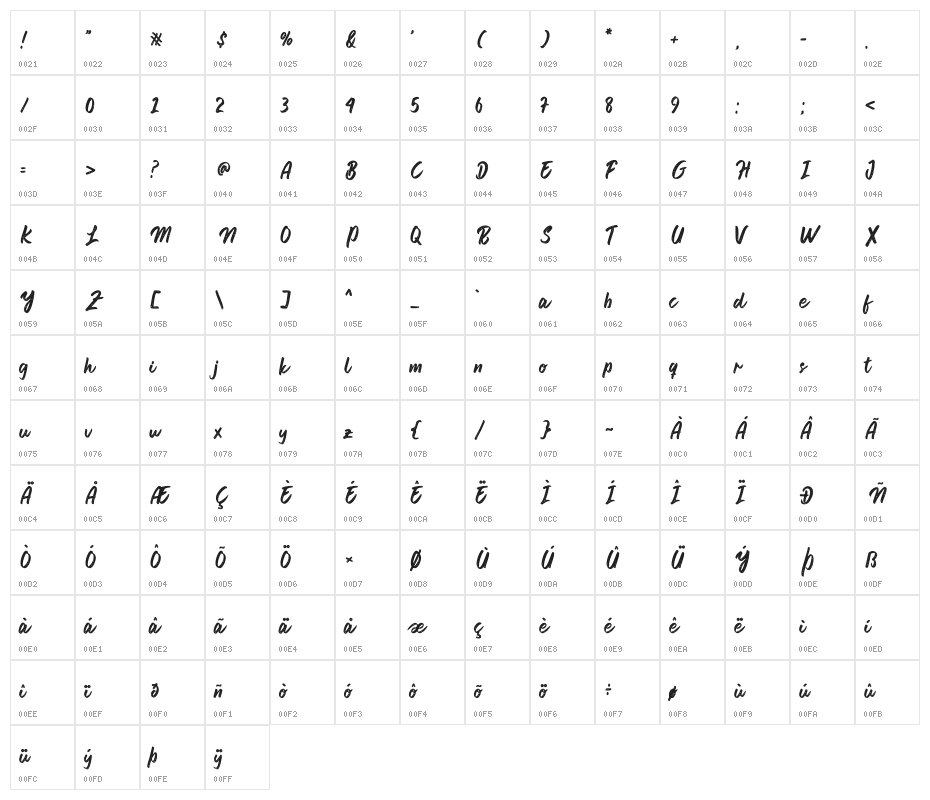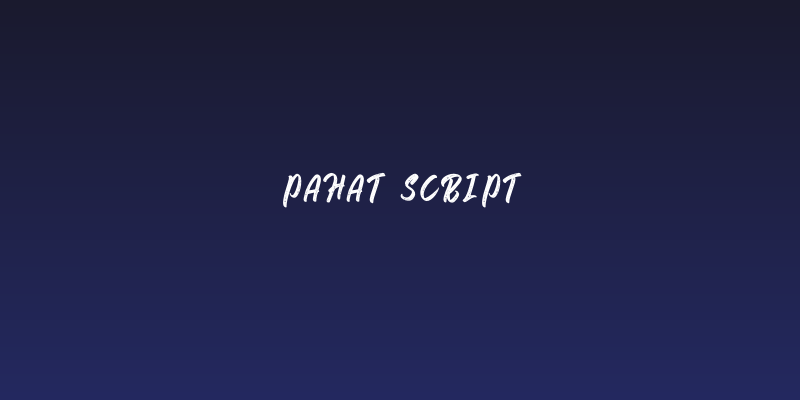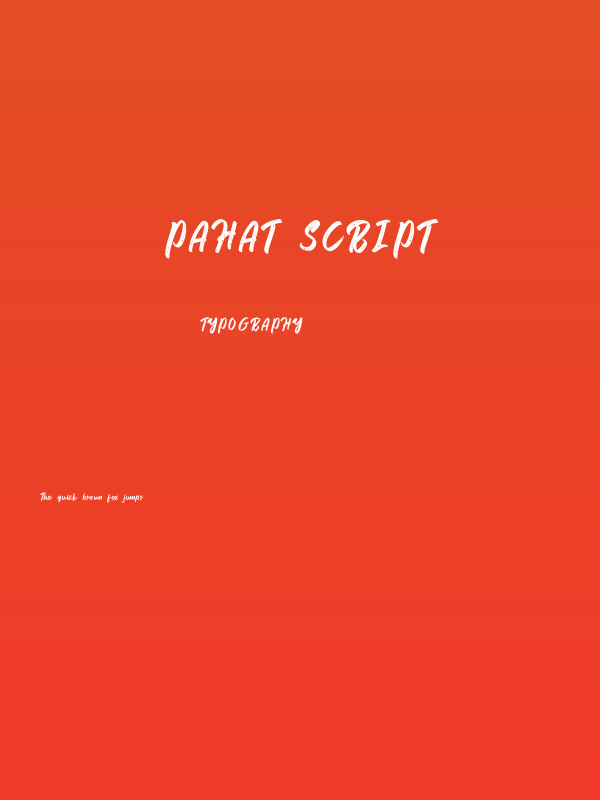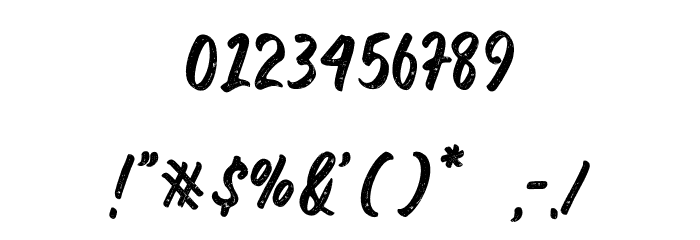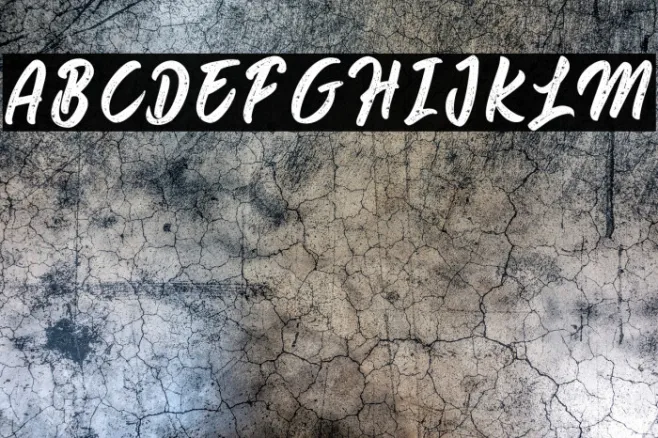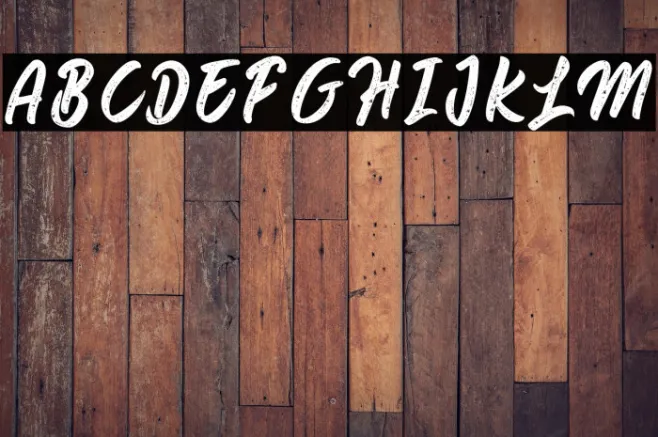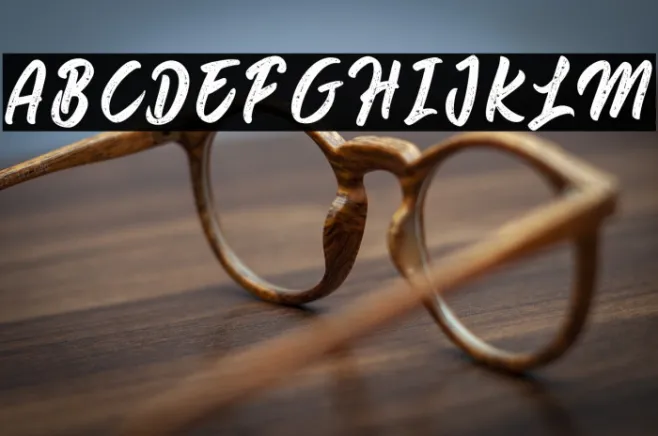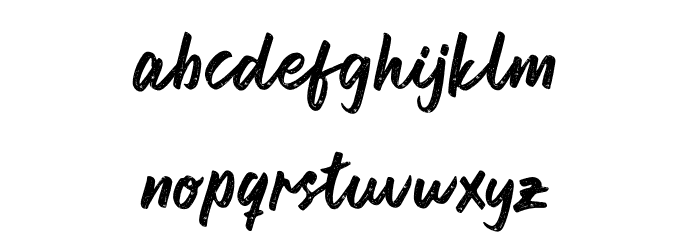
Pahat Script Font
Pahat Script Description
This font features a bold, textured script style that exudes a sense of energy and dynamism. The letters are crafted with a brush-like appearance, giving them a hand-painted look. The uppercase characters are slightly larger and more pronounced, while the lowercase letters maintain a consistent flow and rhythm. The numbers and special characters follow the same stylistic approach, ensuring uniformity across all elements. The overall design is both artistic and legible, making it suitable for a variety of creative applications.
| Proposed Projects | Ideal for branding, posters, invitations, and any project requiring a dynamic and artistic touch. |